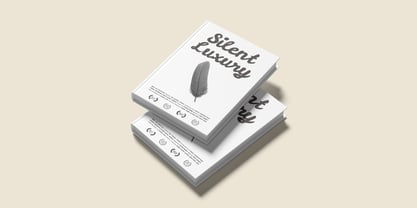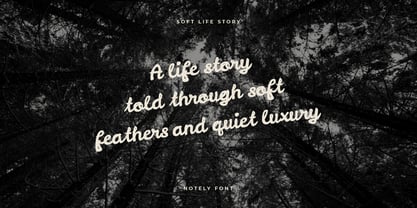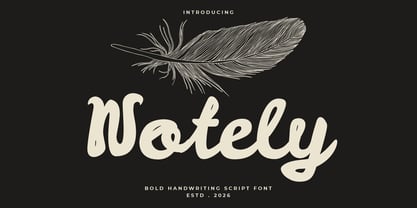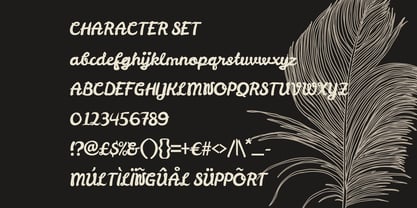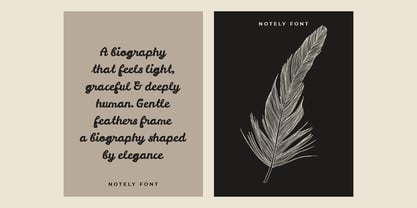
Notely
Notely Bold Brush Handwriting Font brings a confident handwritten voice with generous stroke weight and smooth curves. The letterforms feel organic, rounded, and slightly irregular, which creates a natural human rhythm. Each character shows bold pressure, soft edges, and fluid connections that resemble expressive brush writing. The height remains balanced, with clear ascenders and descenders that support readability at various sizes. Stroke contrast stays minimal, keeping the font strong, stable, and visually consistent. This structure allows messages to feel personal without losing clarity or impact. The script flows naturally, making words appear conversational, warm, and emotionally engaging. Notely Bold Brush Handwriting Font works especially well for storytelling, personal branding, and lifestyle-focused designs. It enhances book covers, journals, packaging, and editorial layouts with a calm yet confident tone. The handwritten style adds sincerity to quotes, headlines, and promotional messaging. For creative businesses, the font builds trust by feeling approachable and authentic. It suits logos that need personality without appearing casual or messy. The bold strokes ensure strong visibility for posters, social media graphics, and product labels. When applied to note-style themes, the font reinforces intimacy, reflection, and human connection. This balance between softness and strength makes it versatile across modern and classic layouts.